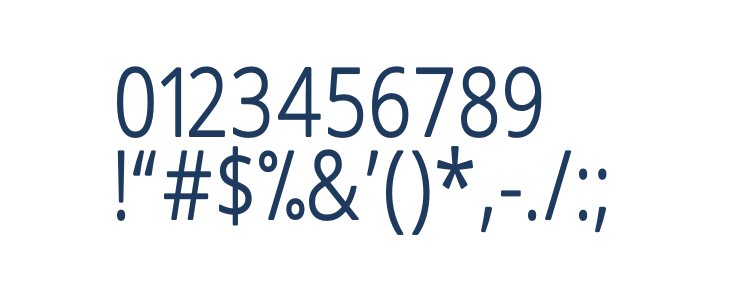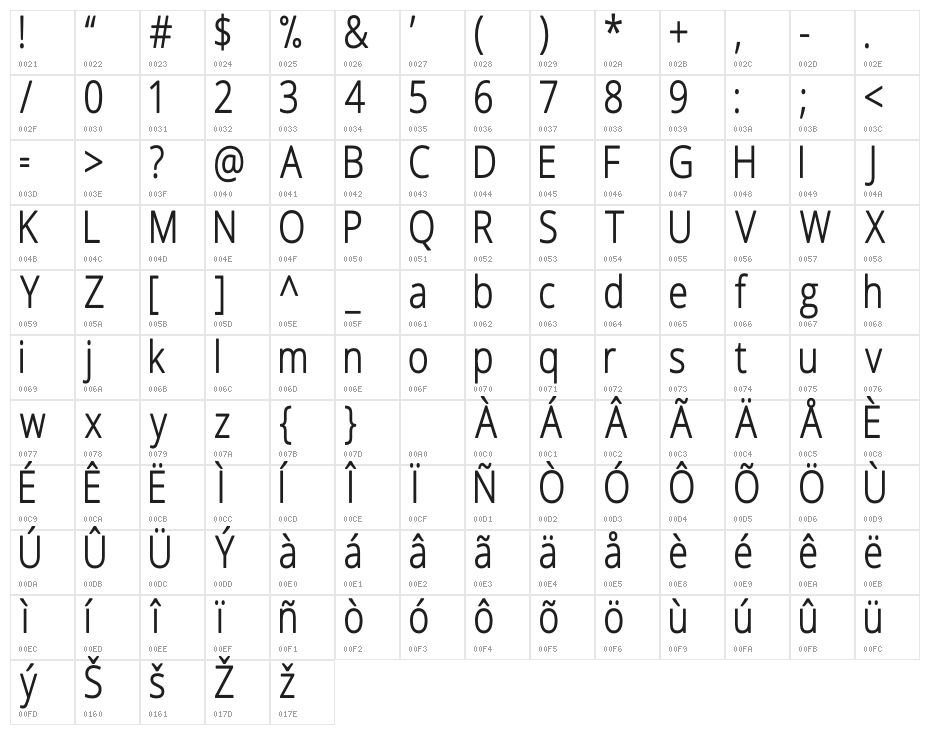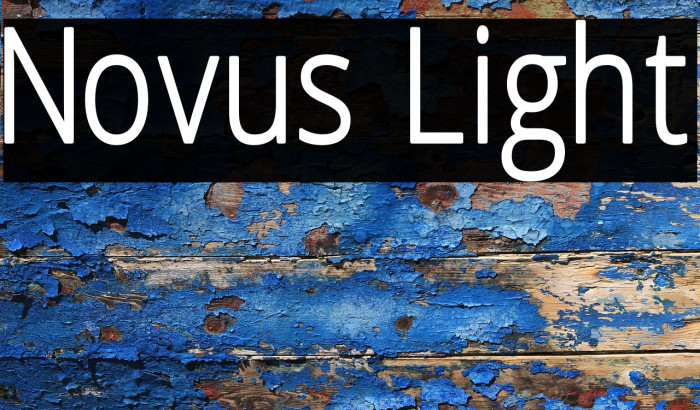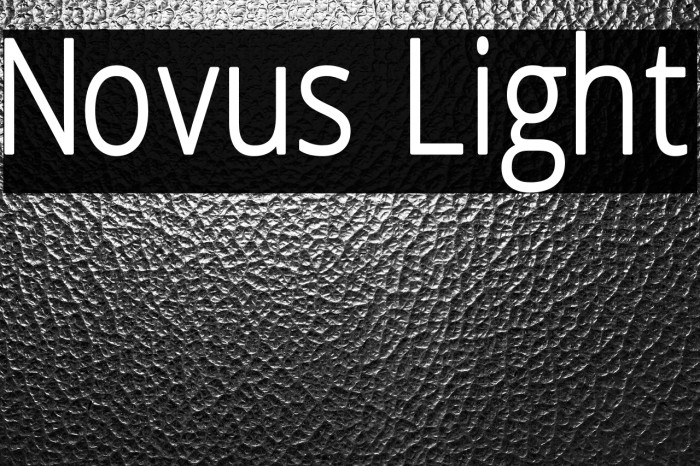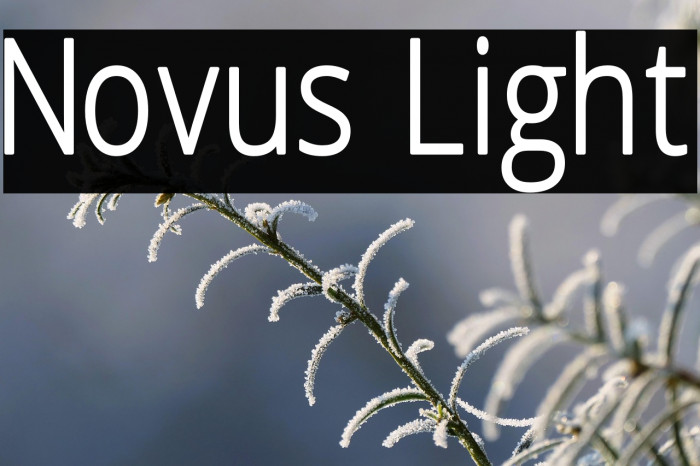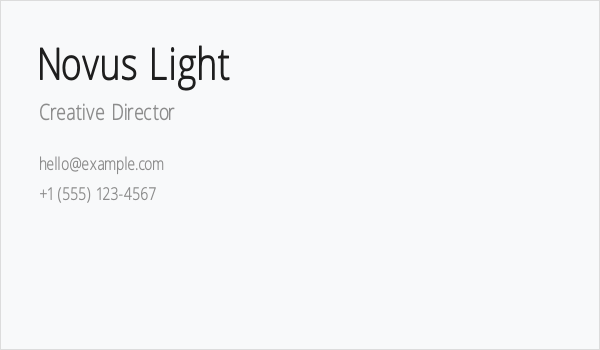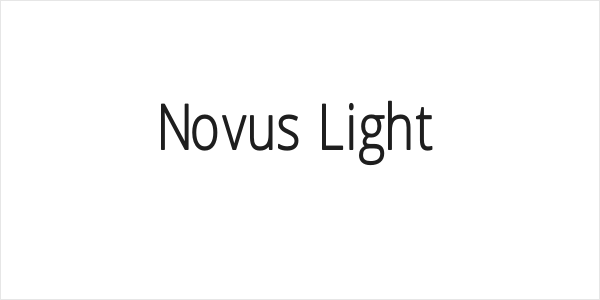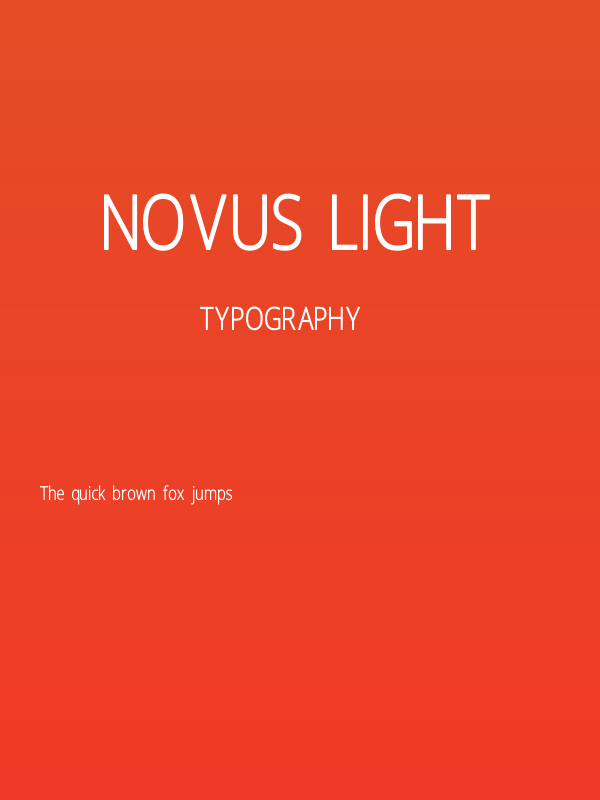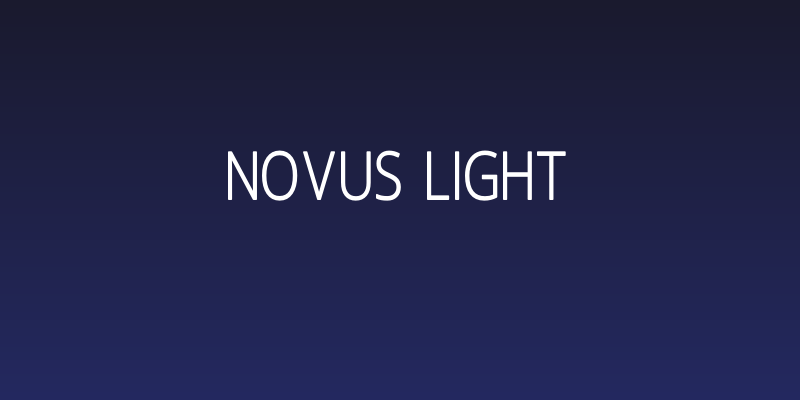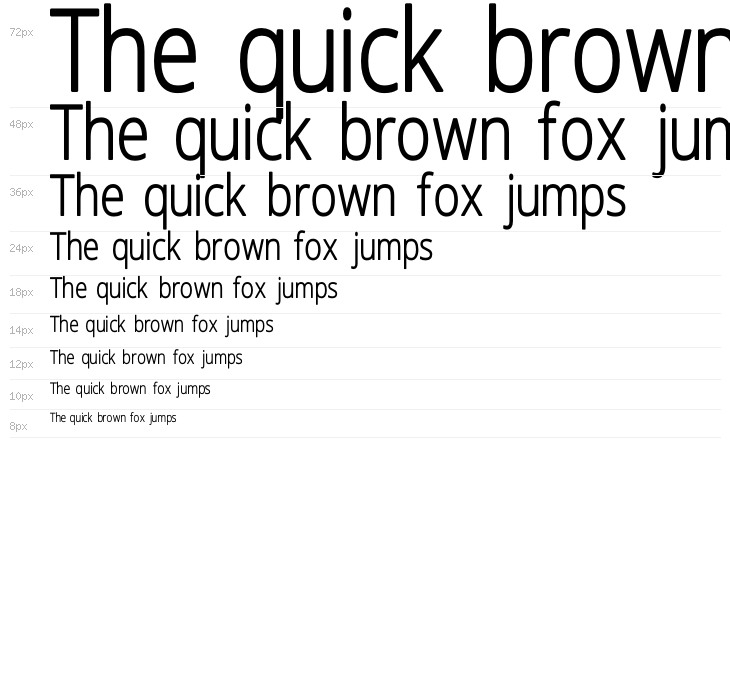
Novus Light Font
Novus Light Description
This font features a clean and modern sans-serif design, characterized by its simplicity and clarity. The letters are evenly spaced with a consistent stroke width, providing a balanced and harmonious appearance. The uppercase and lowercase letters are well-proportioned, making it easy to read at various sizes. The numerals are straightforward and align well with the overall style, while the special characters are designed to complement the alphabetic characters seamlessly. This font is versatile, suitable for both digital and print media, and can be used in a variety of contexts where readability and a contemporary look are desired.
| Proposed Projects | Ideal for branding, web design, advertising, and editorial projects where clarity and modernity are key. |